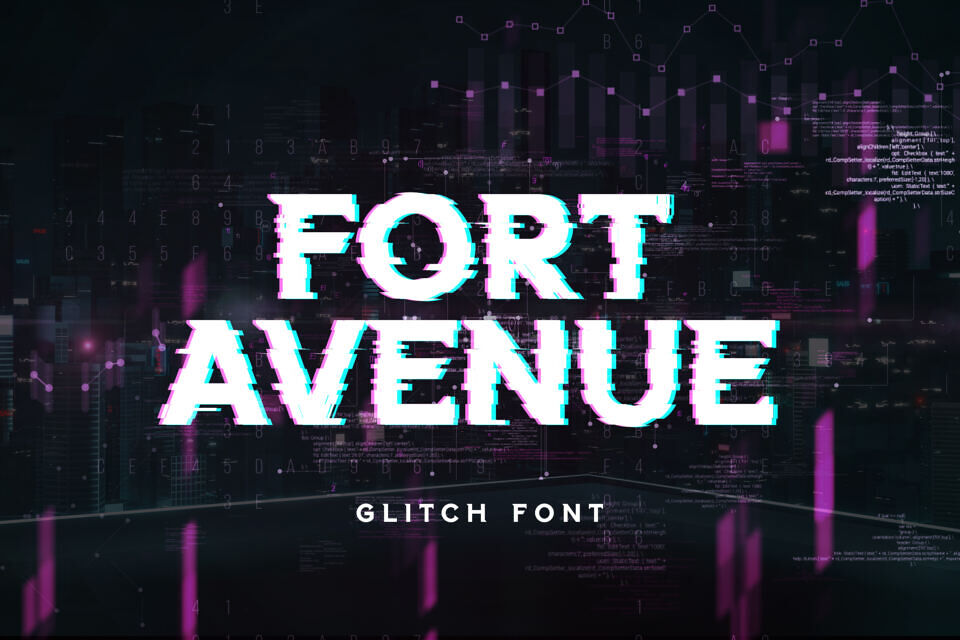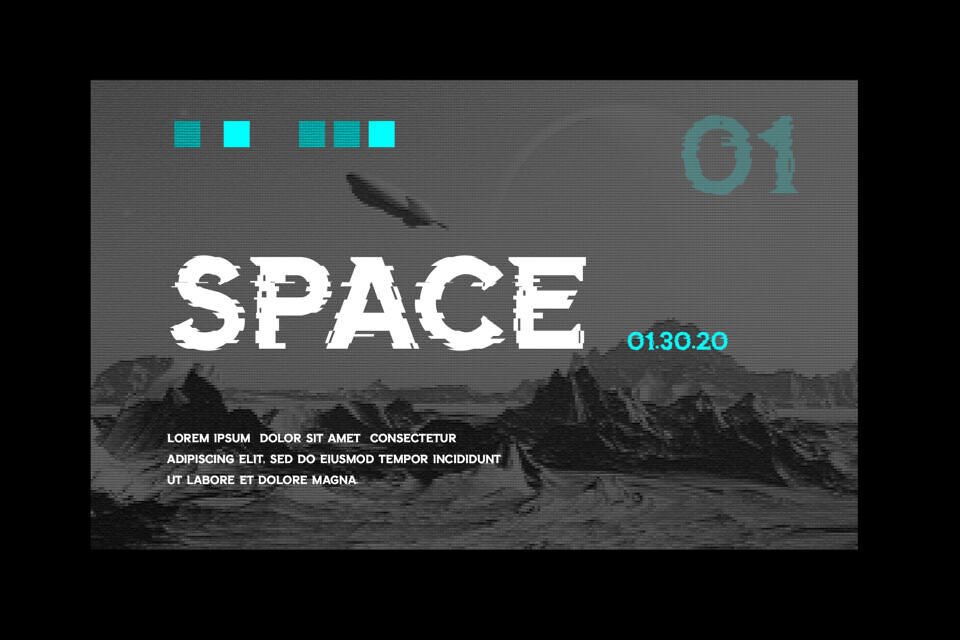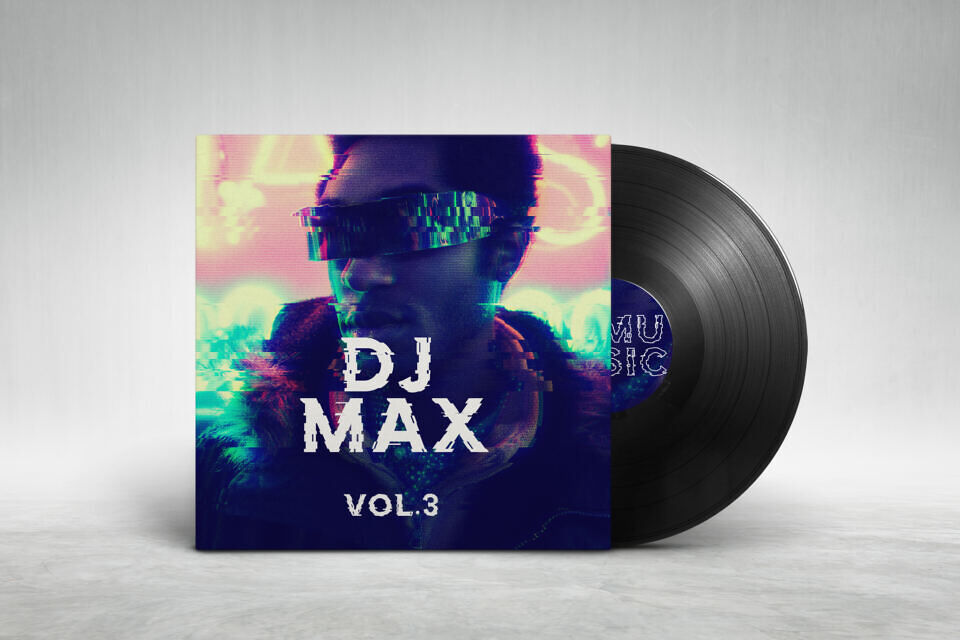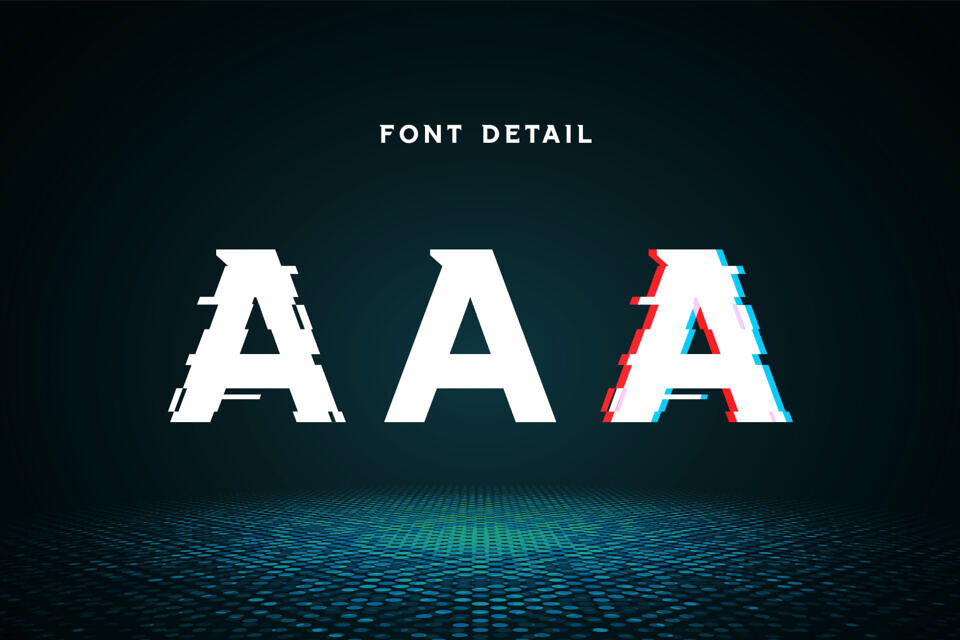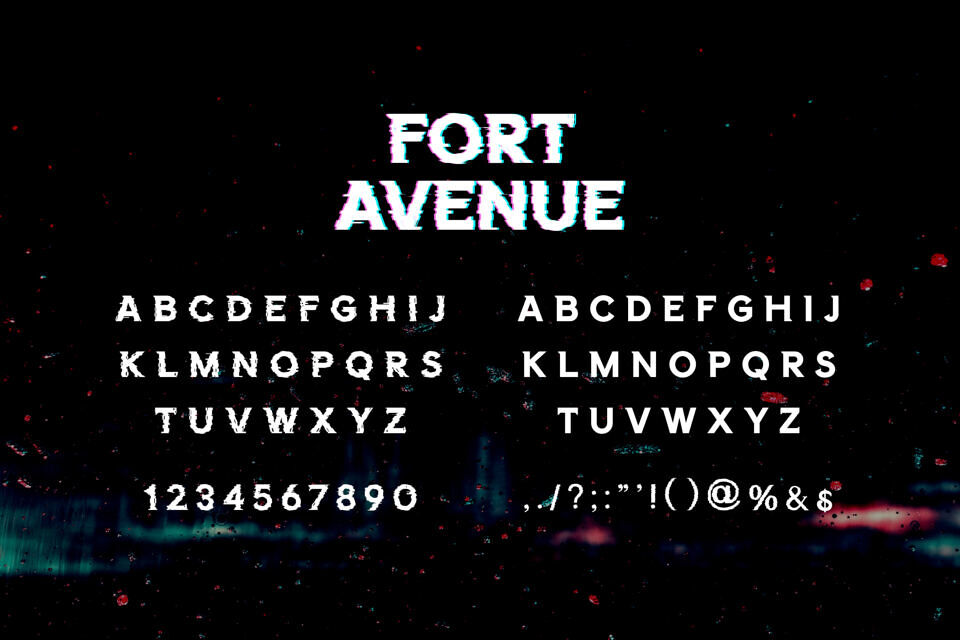
Fort Avenue Font
Fort Avenue is a cool and modern display font. No matter the topic, this font will be an incredibly asset to your fonts’ library, as it has the potential to elevate any creation.